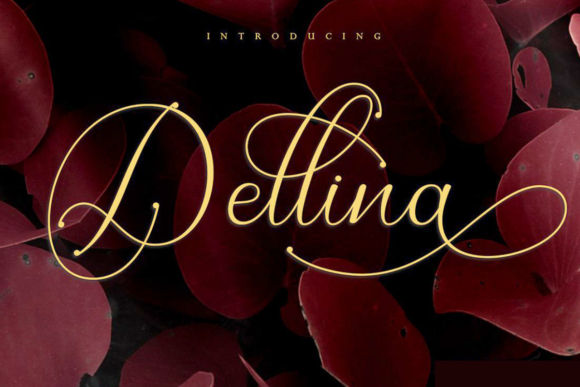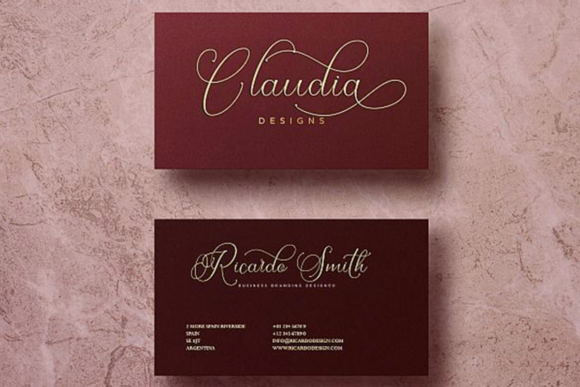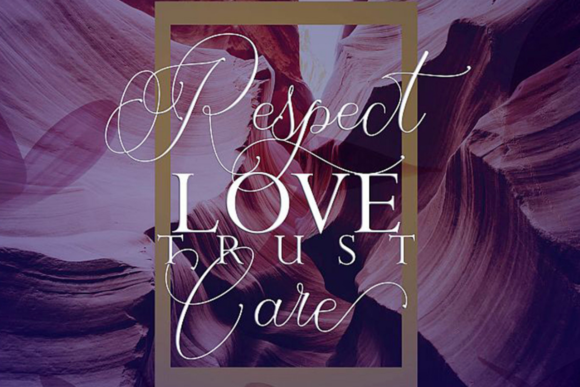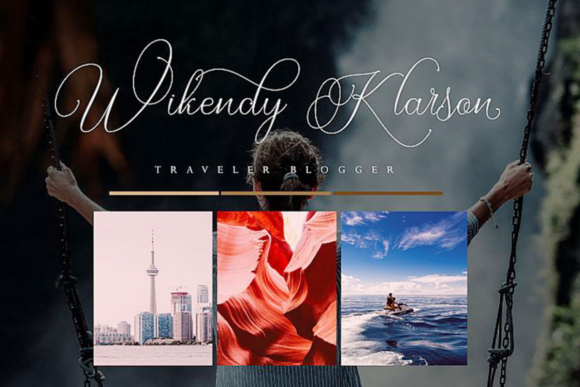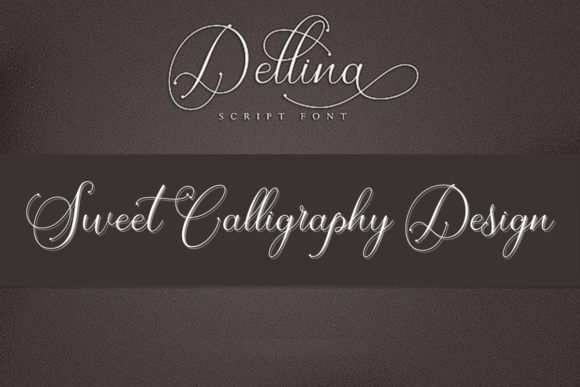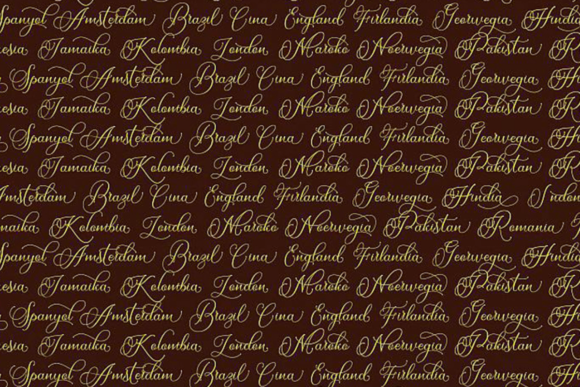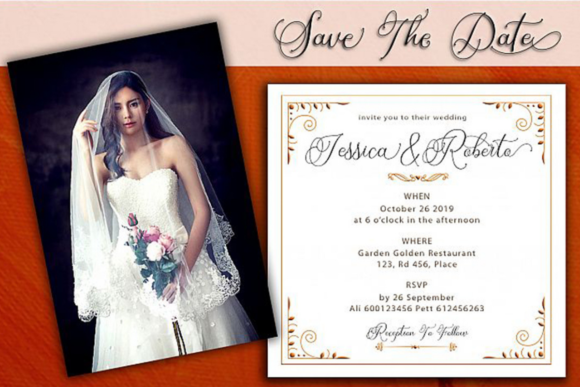
Dellina Script Font
About Dellina Script Font
Dellina is a truly luxurious and romantic script font that exudes elegance and sophistication. Its beautifully crafted calligraphy swashes add a touch of opulence and charm, making it the perfect choice for special occasions and projects that require a dash of refined beauty.
Wedding Invitations: Dellina is a dreamy font for wedding invitations, setting the tone for a romantic and elegant celebration. Its graceful curves and intricate swashes add a touch of luxury, making the invitation feel like a work of art.
Greeting Cards: Whether it’s a heartfelt message or a celebratory note, Dellina adds a touch of class and sentimentality to greeting cards. The font’s romantic charm makes it perfect for expressing emotions and creating a lasting impression.
Branding: Dellina can elevate any brand’s identity, giving it a luxurious and sophisticated feel. It’s well-suited for high-end fashion brands, luxury products, and any business seeking to convey an aura of elegance.
Editorial Design: When used in editorial designs, Dellina adds a touch of glamour and allure. It can be used for magazine headlines, article titles, and any layout that requires a refined touch.
Artistic Projects: Dellina is a font that inspires creativity and artistry. Use it in art prints, posters, or any project that demands a touch of elegance and romance.
Social Media Graphics: Dellina is perfect for creating eye-catching social media graphics. Its luxurious style will make your posts stand out and capture the attention of your audience.
Dellina’s calligraphy swashes are a key feature that sets it apart, allowing for even more creative possibilities. These elegant flourishes can be used to embellish letters, add decorative elements, or create beautiful monograms.
Overall, Dellina is a font that brings a touch of luxury and romance to any project. Its graceful and elegant design, combined with the charming calligraphy swashes, makes it a perfect choice for wedding invitations, greeting cards, branding, editorial designs, and any project that needs a hint of sophistication and beauty.